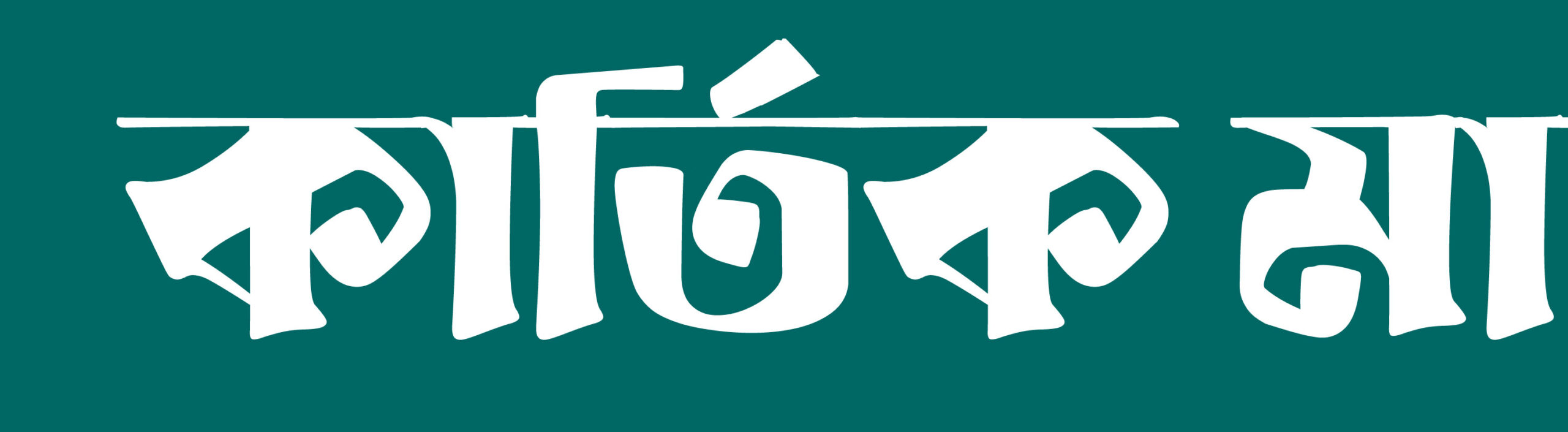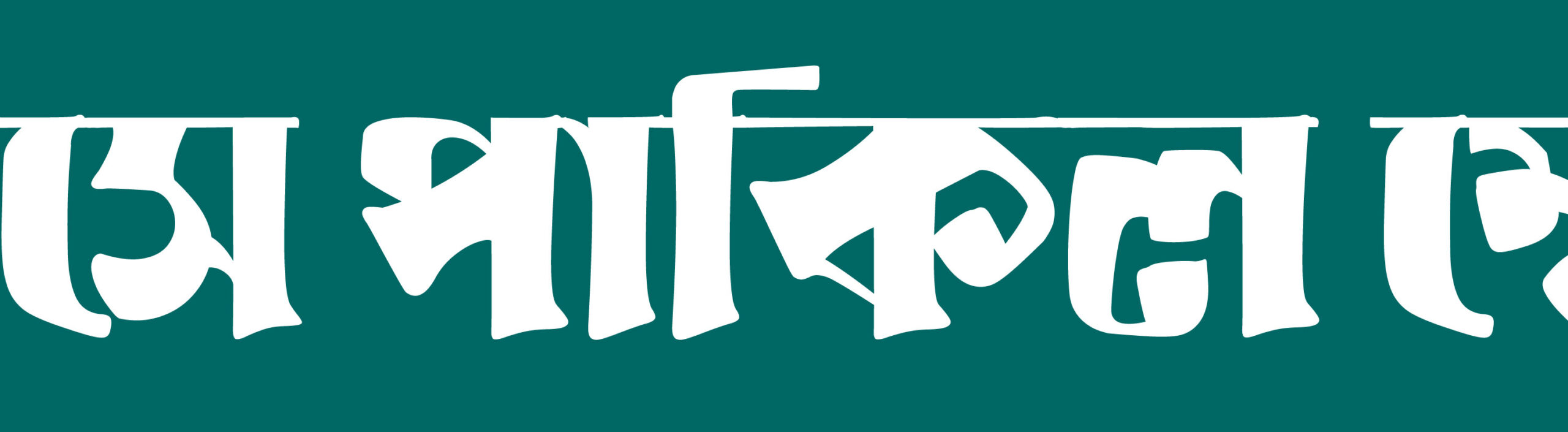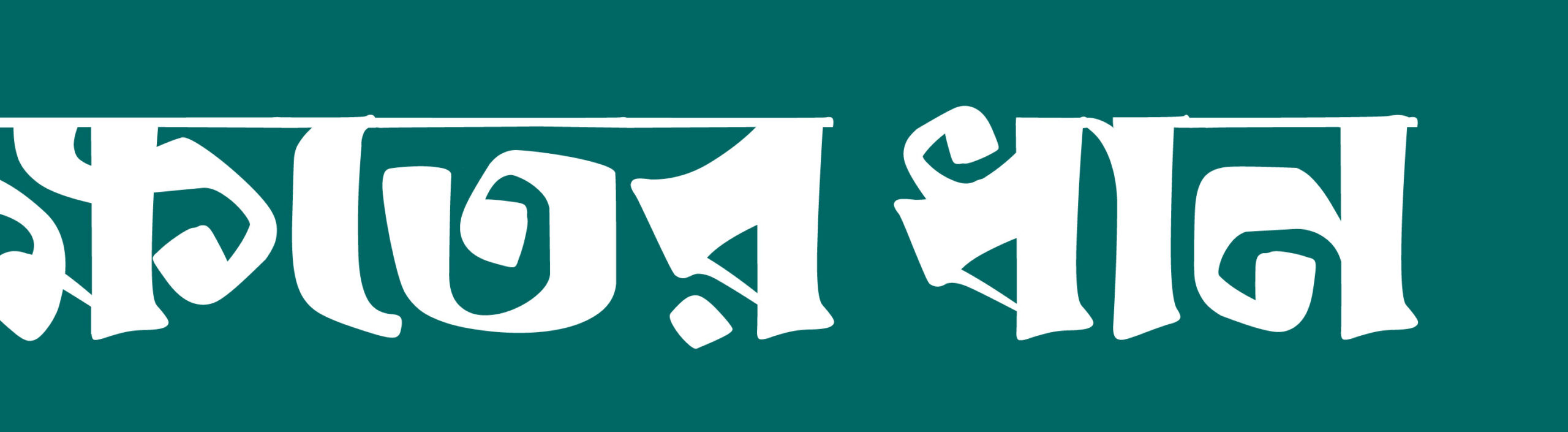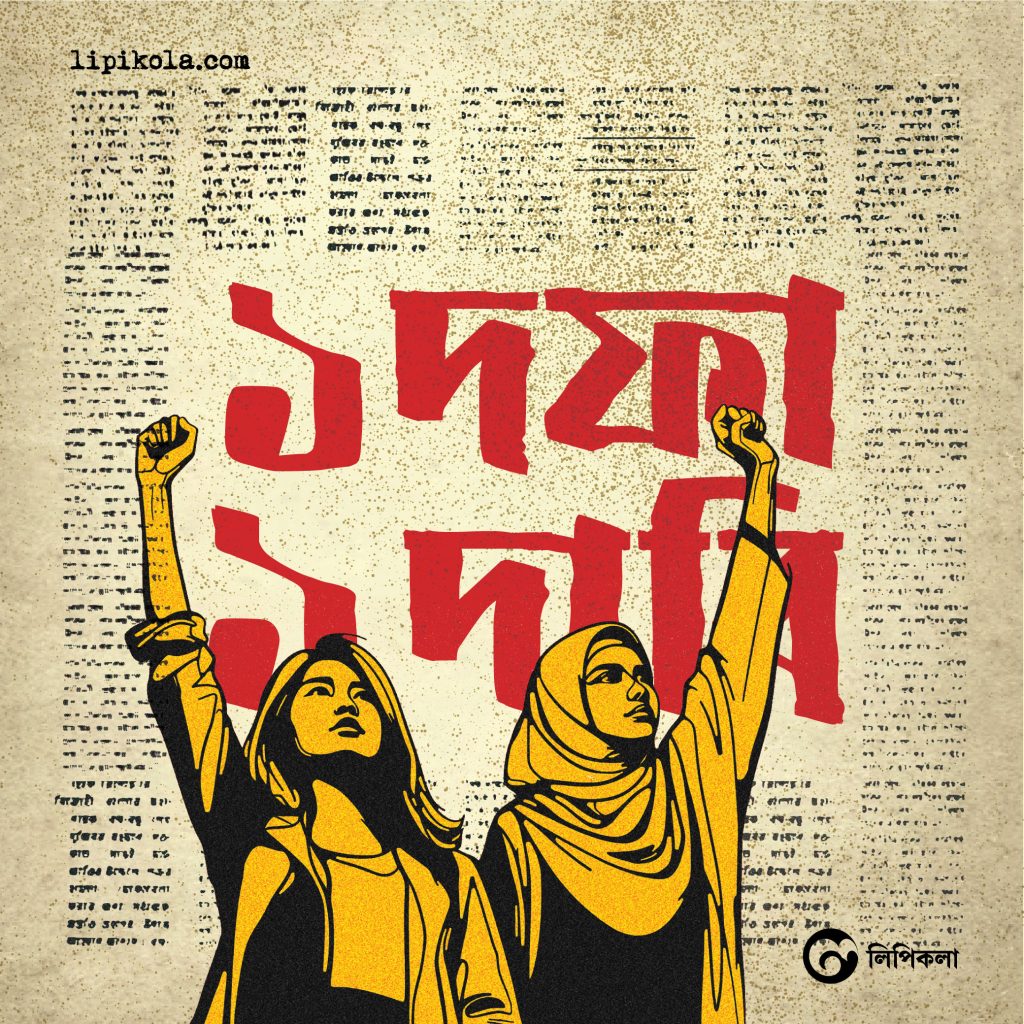
Designer
Kazi Jubair Mahmud
Kartik Typeface channels the raw energy of revolutionary wall writings and street activism. Inspired by bold slogans and political graffiti, it reflects urgency and defiance through sharp contrasts—razor-thin matras paired with thick, uneven strokes that mimic hurried, emotional lettering. The letterforms feel raw and imperfect, as if painted with charcoal or a broken brush, embracing human irregularity. This expressive style demands attention and presence, making Kartik ideal for posters, protest materials, and striking headlines. Despite its boldness, it remains readable, balancing emotion with clarity. Reflecting the transitional spirit of the month Kartik, the typeface embodies tension between past and future, order and resistance. It doesn’t whisper—it declares.
Classifications
Display
Type Engineer
Kazi Sayeed Mahmud
Publisher
Lipikola Type Foundry
Kartik
Designer
Kazi Jubair Mahmud
Kartik Typeface channels the raw energy of revolutionary wall writings and street activism. Inspired by bold slogans and political graffiti, it reflects urgency and defiance through sharp contrasts—razor-thin matras paired with thick, uneven strokes that mimic hurried, emotional lettering. The letterforms feel raw and imperfect, as if painted with charcoal or a broken brush, embracing human irregularity. This expressive style demands attention and presence, making Kartik ideal for posters, protest materials, and striking headlines. Despite its boldness, it remains readable, balancing emotion with clarity. Reflecting the transitional spirit of the month Kartik, the typeface embodies tension between past and future, order and resistance. It doesn’t whisper—it declares.
Family Name
Kartik
Available style
Bold
Classification
Display
Type Engineer
Kazi Sayeed Mahmud
Publisher
Lipikola Type Foundry